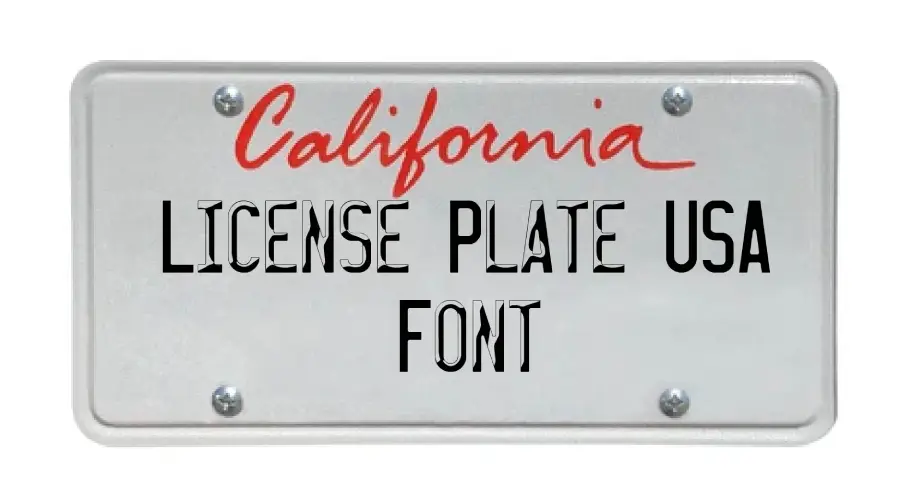
If you are looking for a font that can capture the look and feel of American license plates, you might want to check out the License Plate USA Font. This font is based on the four North American font types based on curve construction and appearance. It has lowercase letters and numbers embossed like the actual USA license plates, giving it a realistic and authentic touch.
This font is not only suitable for creating custom car license plates but also for various design projects that require a bold and distinctive style. You can use it for logos, posters, flyers, banners, signs, stickers, labels, and more. The font is also compatible with different languages, such as English, French, Spanish, German, Italian, Portuguese, and others.
Features of License Plate USA Font
The License Plate USA Font has several features and benefits that make it a great choice for your creative needs. It accurately mimics real license plates, offering a unique design. It includes a wide range of characters, from letters and numbers to punctuation and symbols.
You can choose from four styles: regular, italic, bold, and bold italic, allowing for creative flexibility. The font also features alternate versions of some characters and ligatures for a natural look. Simply download, install, and use it in any program that supports fonts. It’s a convenient and effective tool for any design project.
The License Plate USA Font is a unique and versatile typeface that can help you create stunning designs with an American license plate theme. You can use it for various purposes and projects that require a bold and distinctive style.